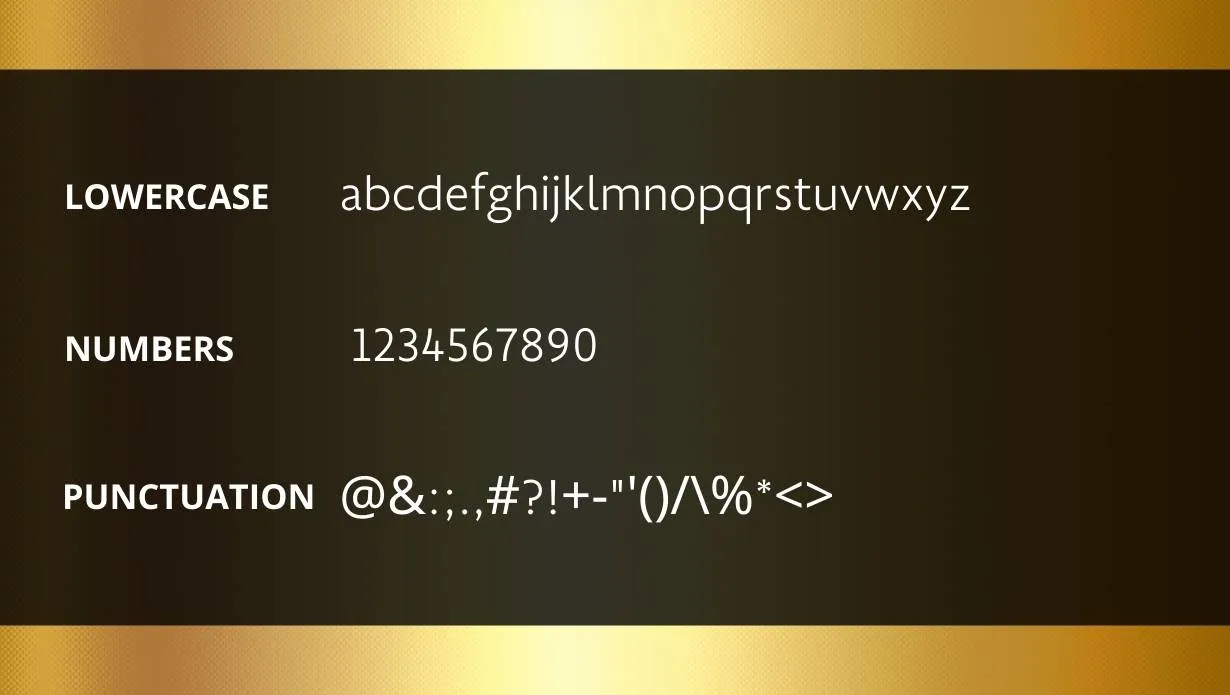
Golden Sans Font is a sans-serif typeface designed by Andrew Paglinawan and released through Linotype in 2001. It is also known for its immense language support same as the steamfunk font and it can support many different international alphabets.
This Font was created with both digital and print applications in mind. The family includes six weights, from ExtraLight to Bold, each with corresponding italics. This Font is an all-purpose design that works well for both body text and headlines.
| Name | Golden Sans Font |
| Designer | Andrew Paglinawan |